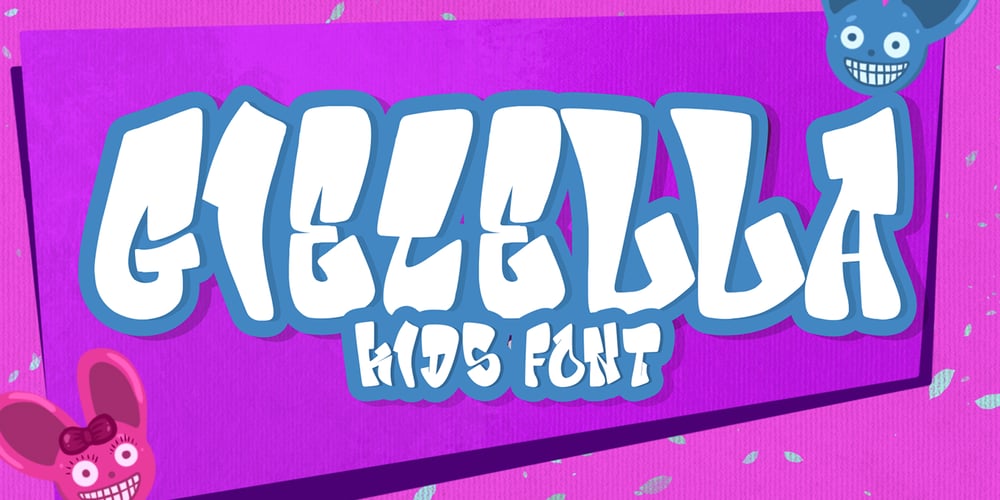
Giecella Kids
Giecella Kids font
Giecella Kids Font Family was designed by Sipanji and published by Sipanji21. Giecella Kids contains 1 styles and family package options. Say hello to Giecella Kids font.Made with love and joy. Comic look, so it will make your design more beautiful, cute, fun, and colorfulIncludes:Giecella Kids (OTF, TTF, WOFF)Bonus (Cute Background)Features:Character SetNumerals and Punctuation (OpenType Standard)I hope you can enjoy the font 🙂